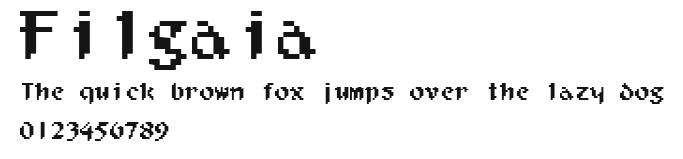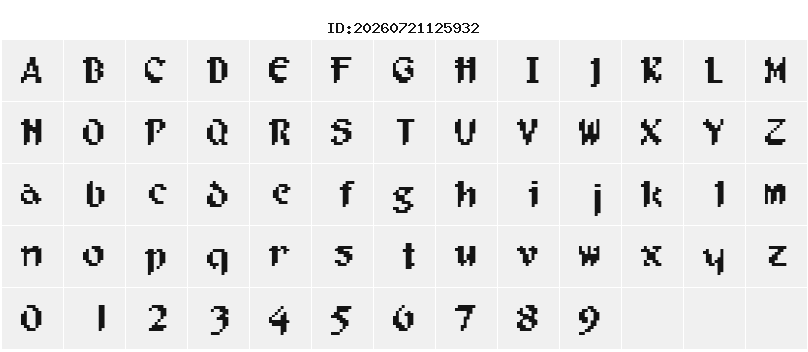
• Font Name: Filgaia
• Designer: Caveras / Cliff Modes
• Description: Filgaia by Caveras - based on the original pixel font used in the Wild Arms video game for the Sony PlayStation (Media Vision/Sony, 1996).